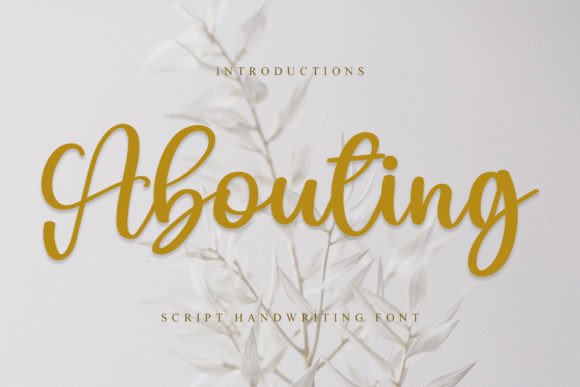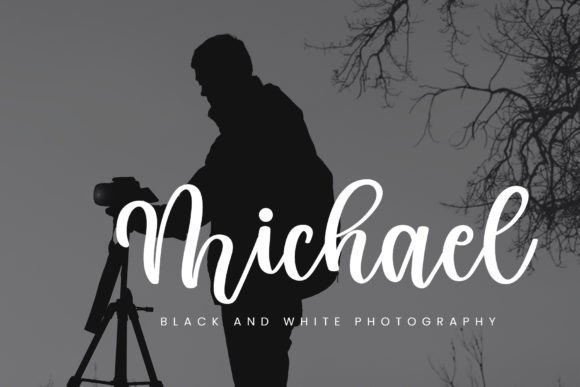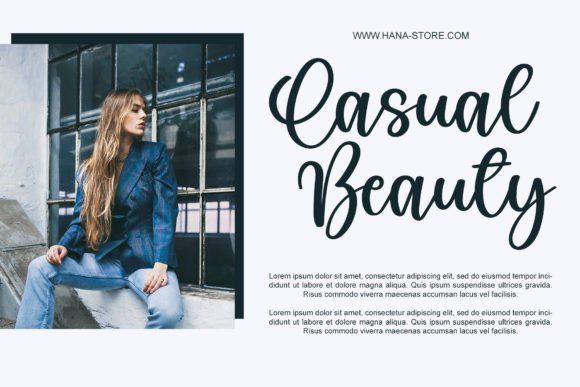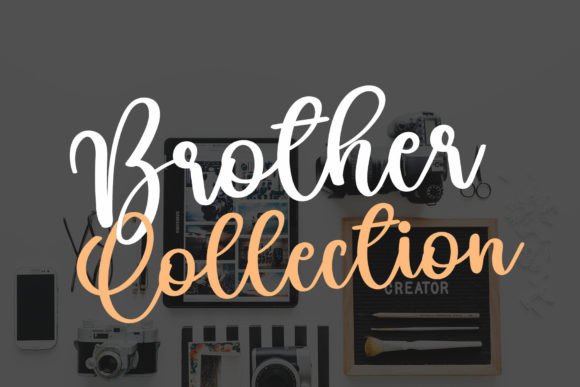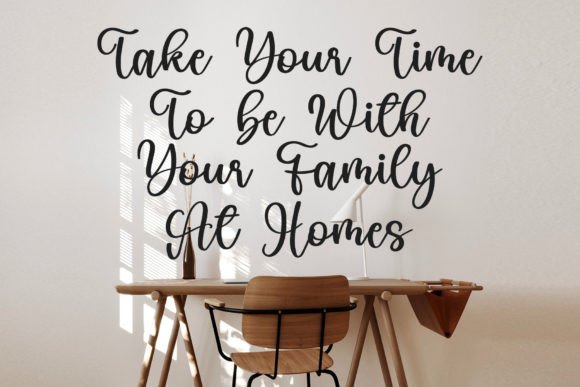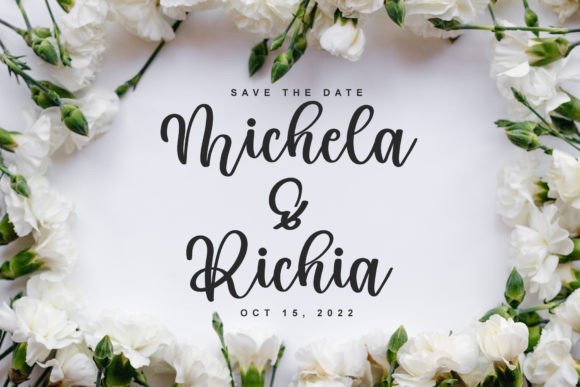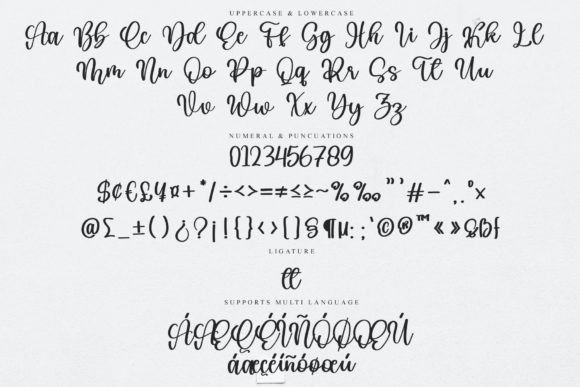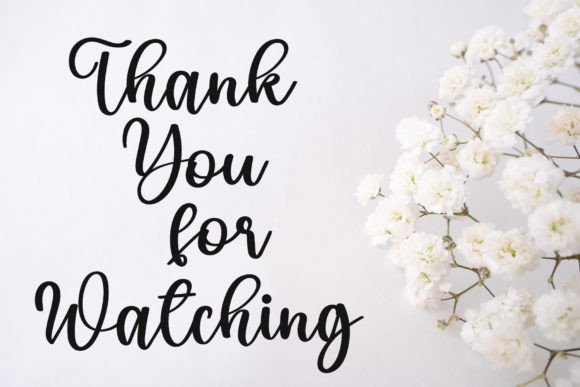
Abouting Font
About Abouting Font
Abouting feels handmade and delivers an incredibly playful handwritten font. Use it to add that special playful touch to any design idea you can think of! Masterfully designed to become a true favorite, this font has the potential to bring each of your creative ideas to the highest level!